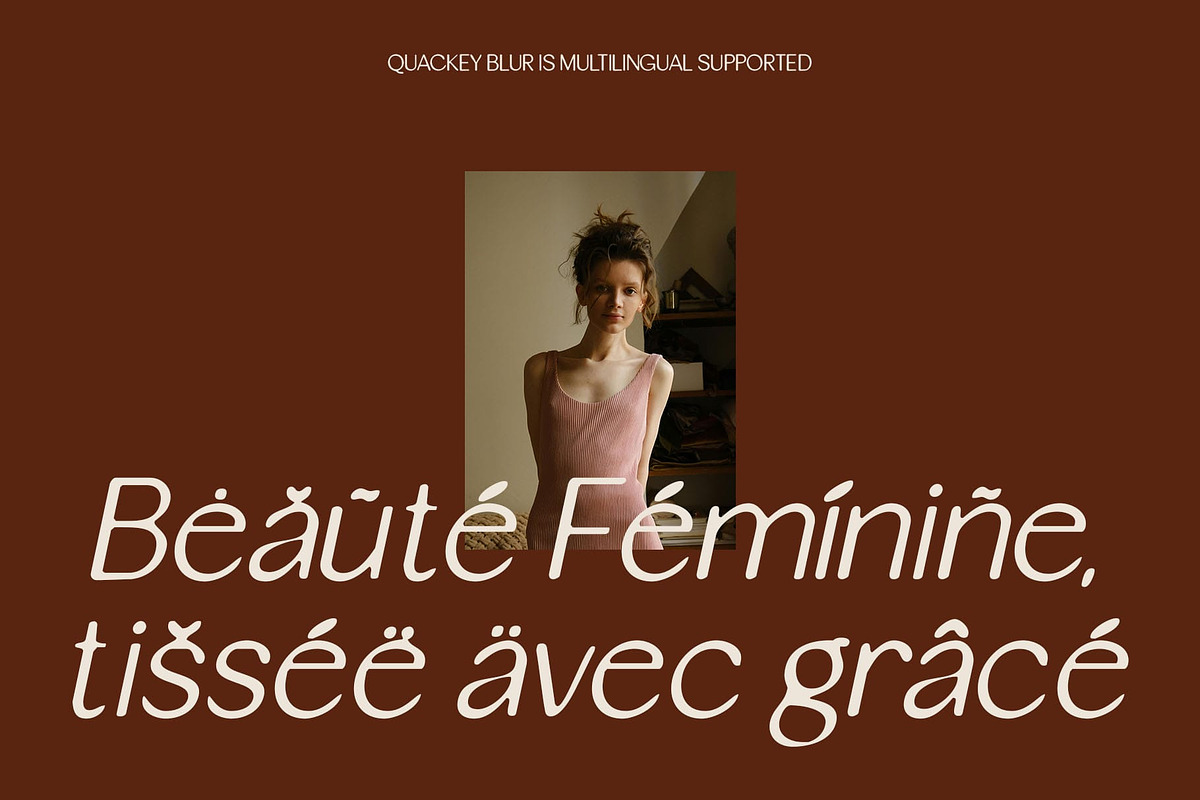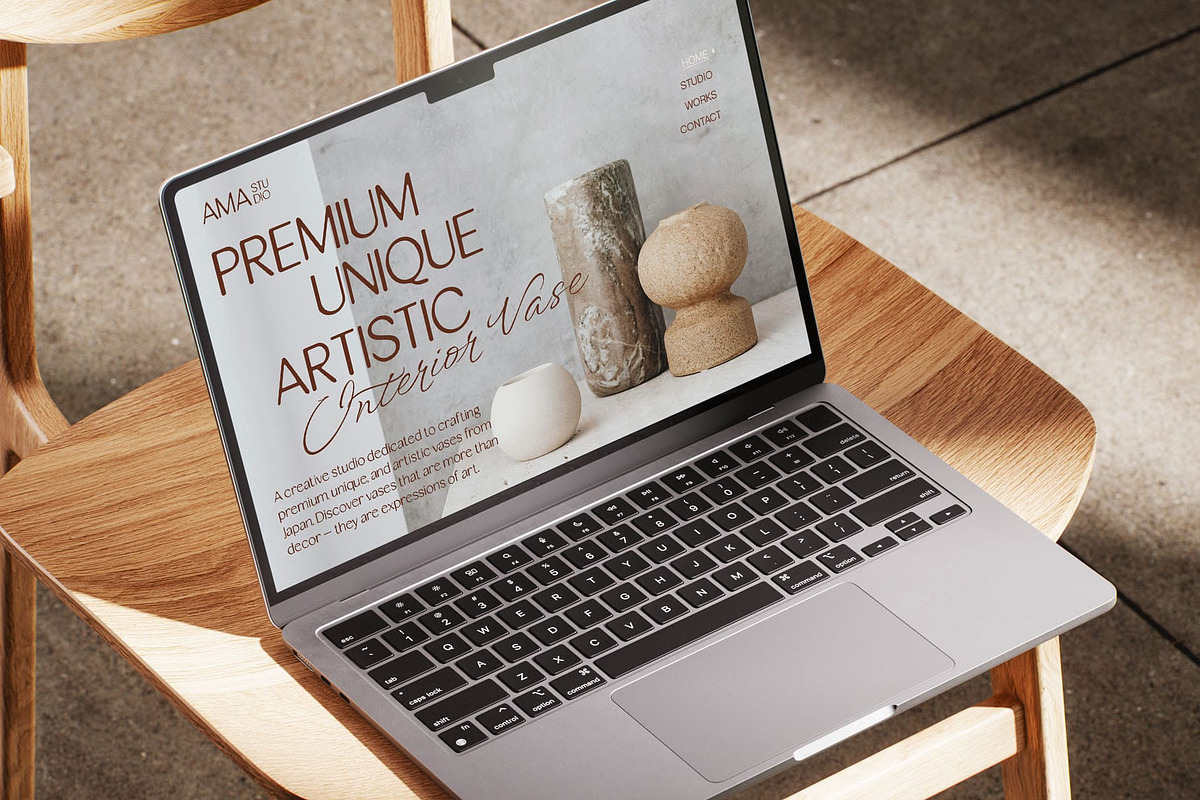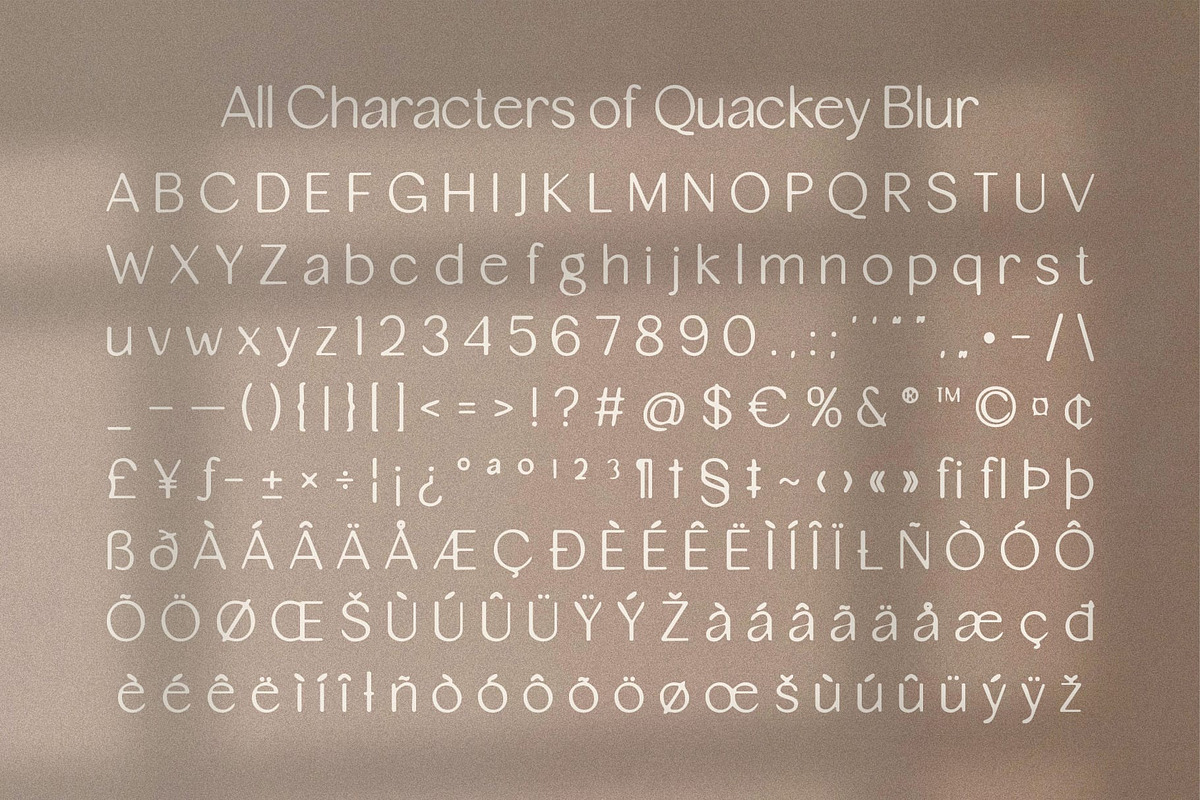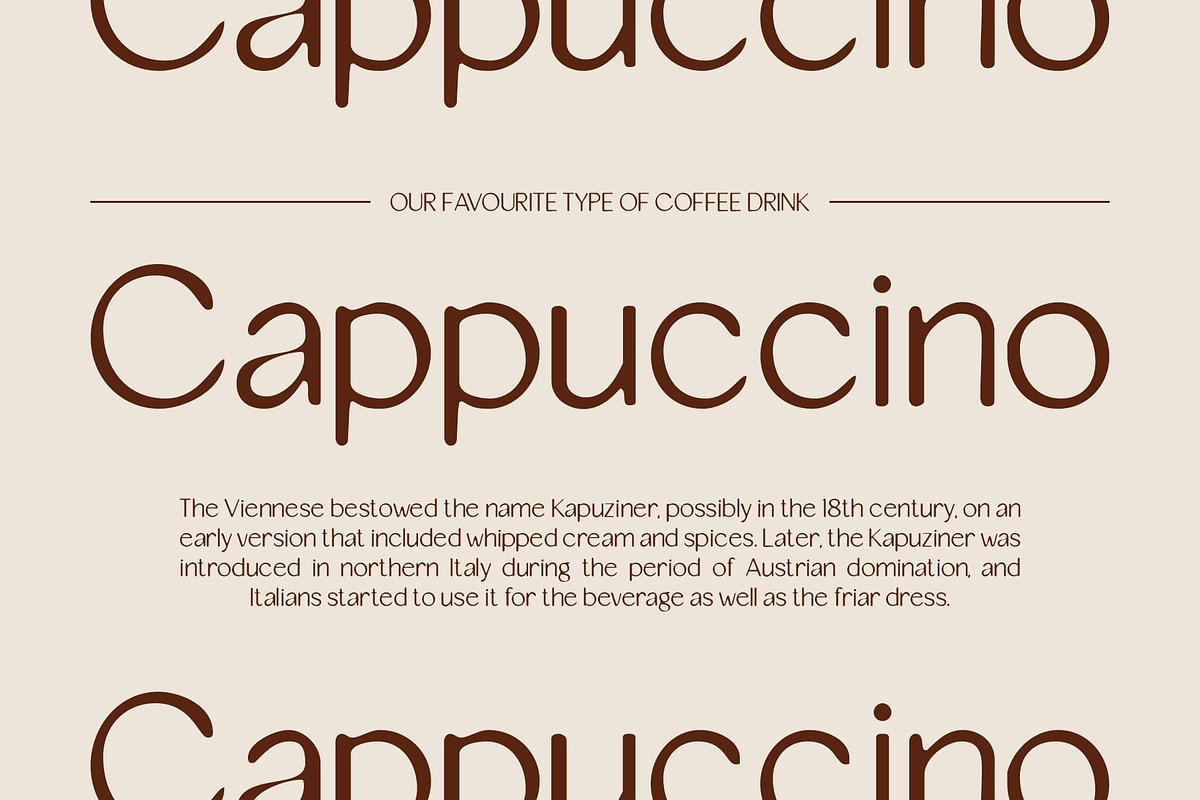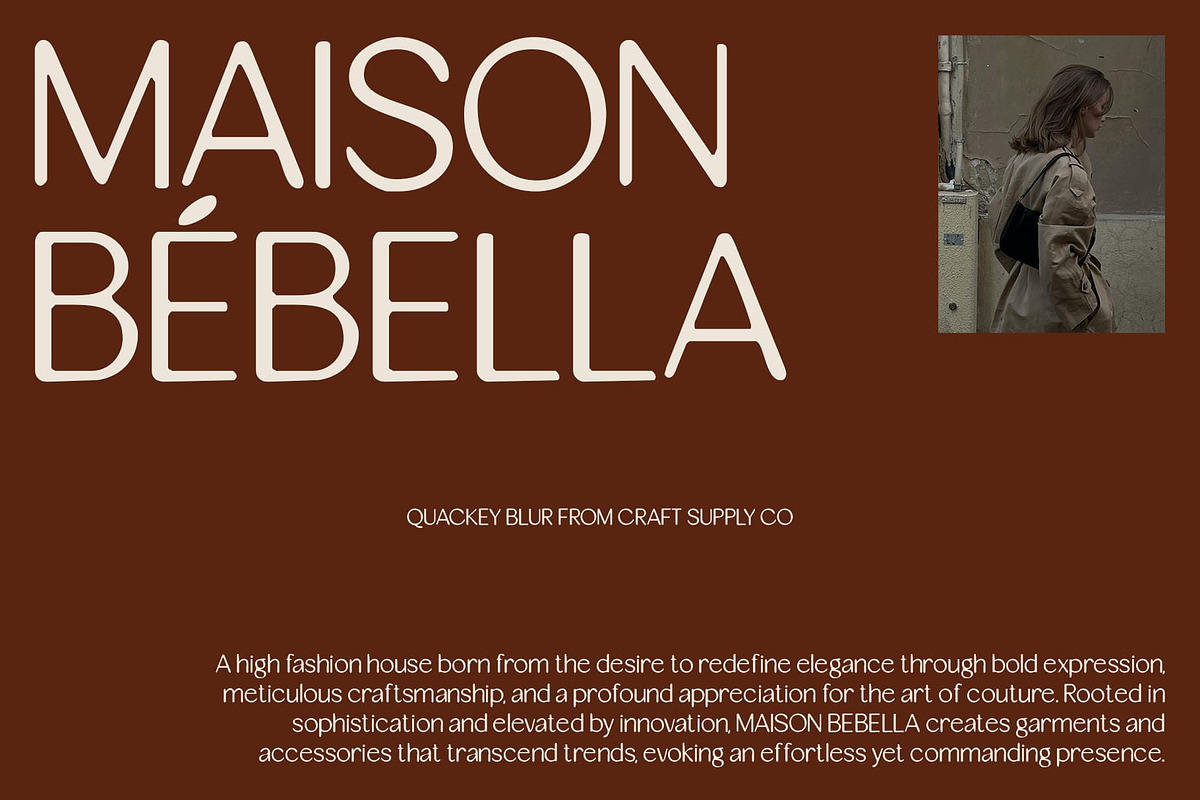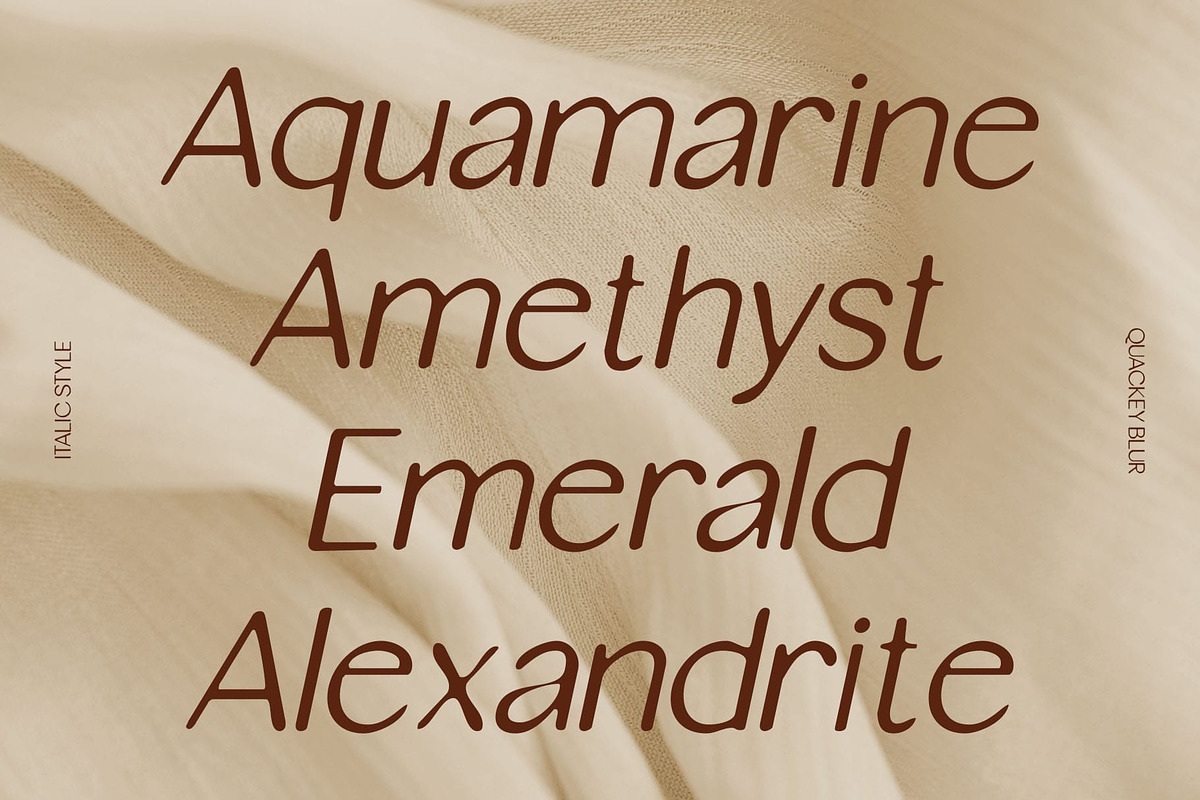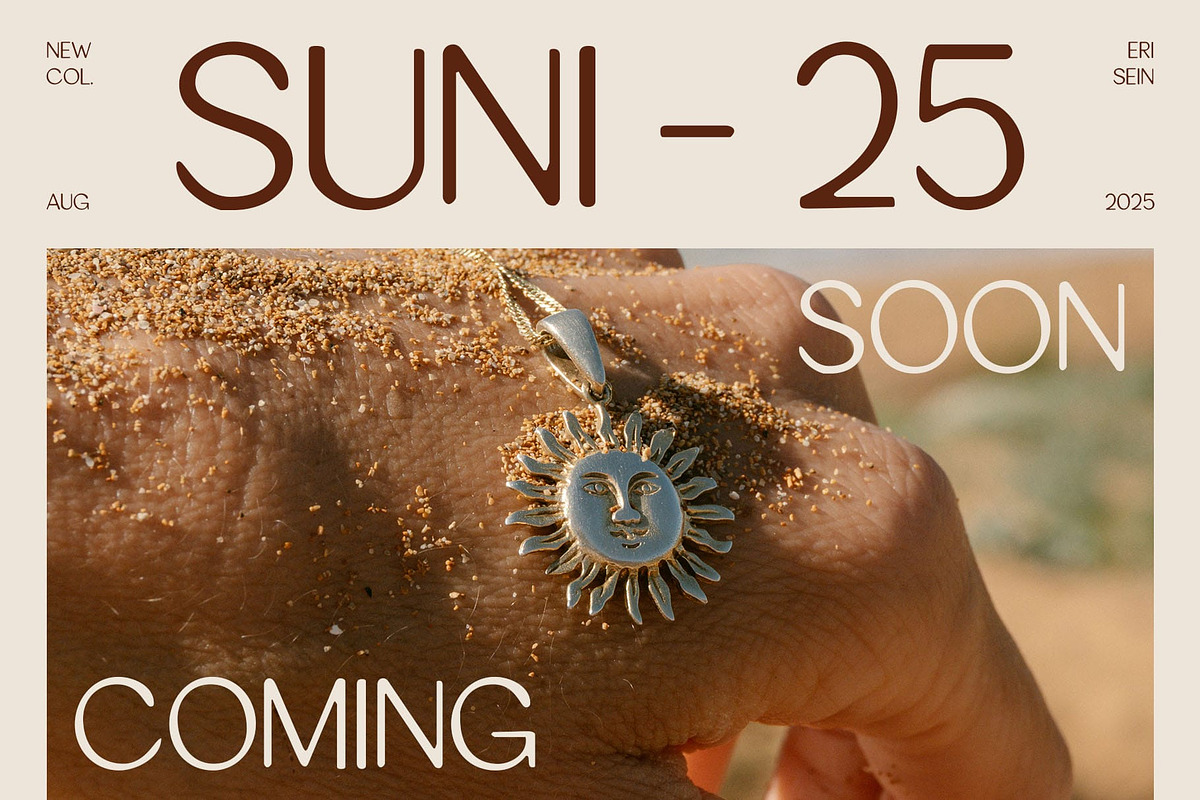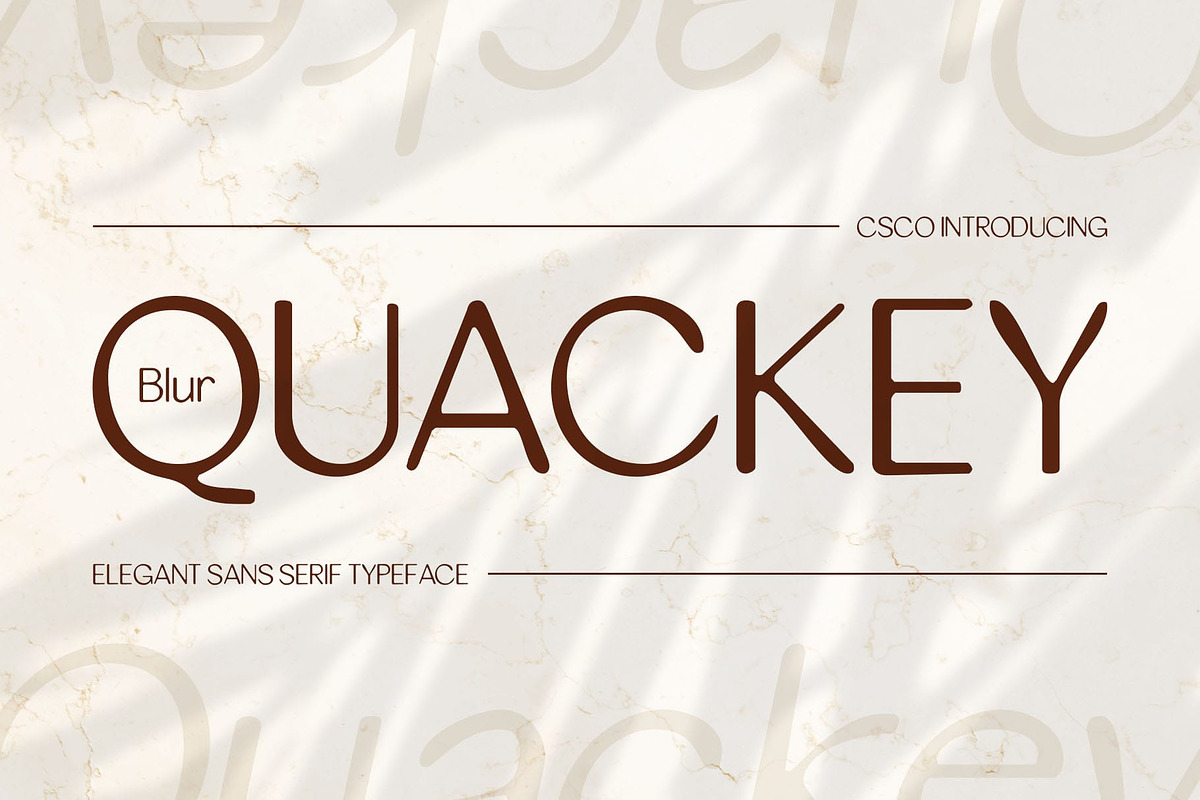
Quackey Blur
Quackey Blur Font – Sophisticated Clarity with an Experimental Touch
Slim and Stylish Modern Design Quackey Blur is a modern sans-serif font featuring slim, stylish letterforms that emphasize clarity, balance, and refined structure. Its minimalist approach delivers a clean, elegant visual identity, perfectly suited for forward-thinking and aesthetically driven design. Quackey Blur is a modern sans-serif display font that combines a slim, clean, and stylish structure with sharp typographic precision. Its minimalist shapes and well-balanced proportions reflect a sleek, contemporary spirit—ideal for designers who value clarity, subtlety, and modern beauty in their visual narratives.
Artistic Blur Effect for Visual Interest A soft blur effect overlays each character, adding a subtle layer of depth and texture. This experimental touch introduces a dreamy, contemporary feel—ideal for designers looking to create work that feels both polished and unconventional.
Elegance Meets Minimalism Blending modernist structure with aesthetic finesse, Quackey Blur brings a harmonious balance of sophistication and visual lightness. Its graceful proportions and clean lines make it a natural choice for high-end branding and editorial compositions.
Perfect for Luxury and Creative Applications From luxury branding and fashion campaigns to editorial spreads and cutting-edge visual projects, Quackey Blur helps communicate a message of elegance, modernity, and creative distinction. It’s a font that speaks to both clarity and character, offering designers a fresh way to stand out.